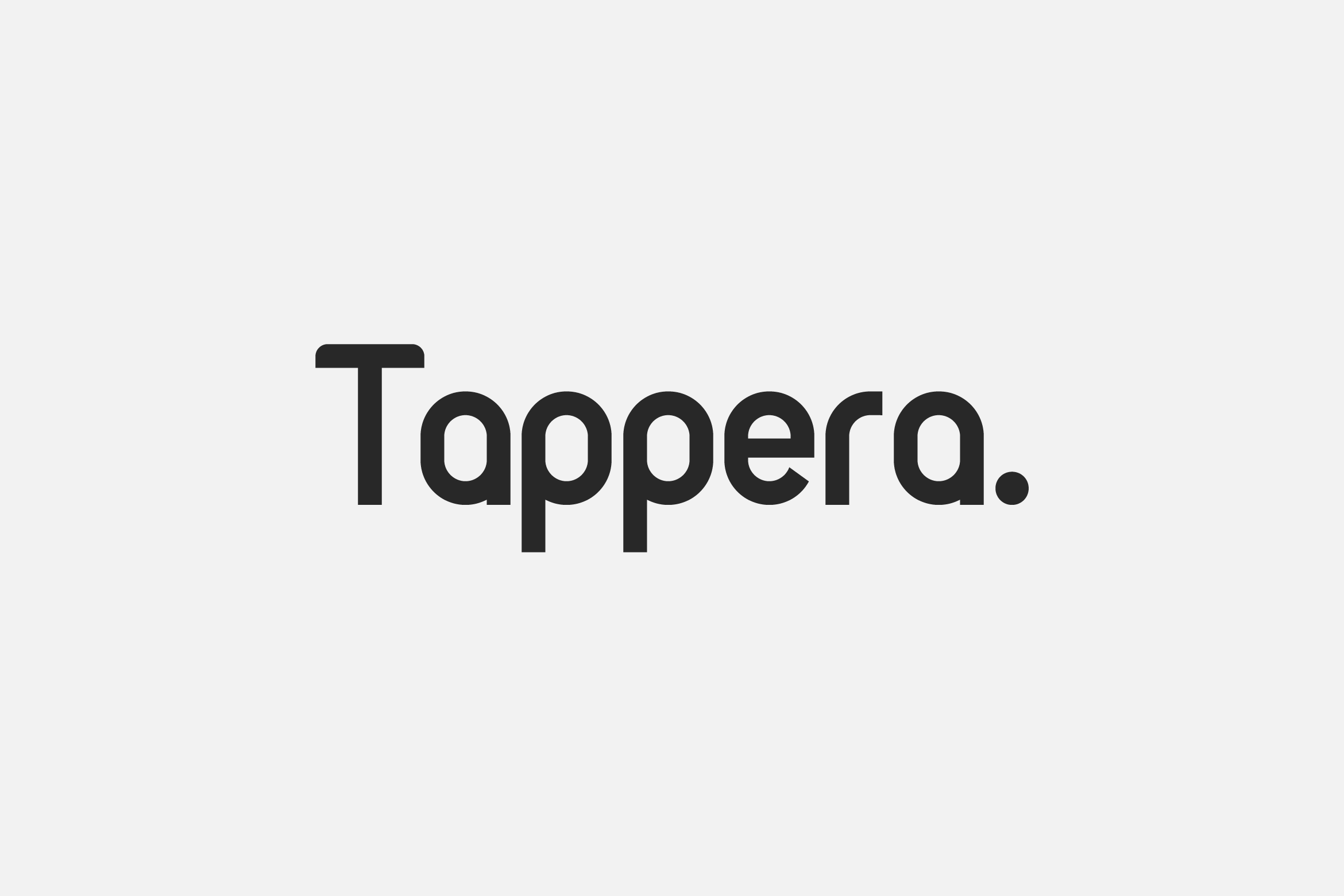
- Tappera Sleek Sans Serif Font
Tappera is a sleek and versatile sans serif font designed to deliver clarity and style in every letterform. With its clean lines, balanced proportions, and contemporary geometric influence, Tappera brings a modern yet timeless aesthetic to your design projects.
Perfect for branding, editorial layouts, packaging, websites, and social media graphics, Tappera adapts effortlessly to a variety of creative needs. Its bold presence makes it an excellent choice for headlines, while its refined structure ensures readability for body text.
Tappera includes uppercase and lowercase letters, numerals, punctuation, multilingual support, and a set of stylistic alternates for added design flexibility. Whether you’re working on a minimalist branding project or a striking digital campaign, Tappera offers the perfect blend of elegance and strength.